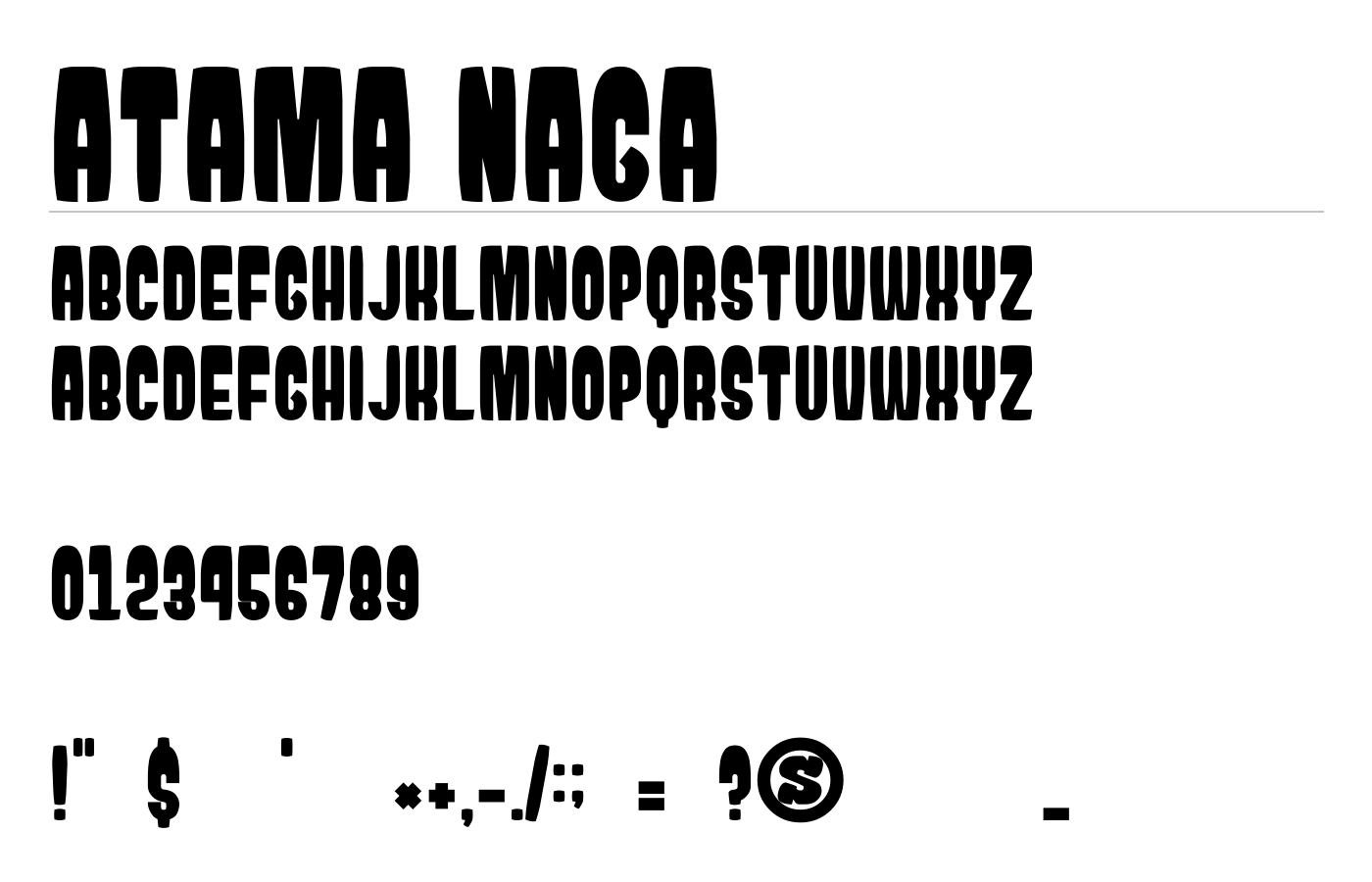
Atama Naga is a bold, condensed sans serif font with a playful yet slightly rugged personality. Its strong, thick strokes and unusual rounded shapes give it a distinctive, eye-catching appearance perfect for headlines, logos, and branding that needs to stand out with a unique and approachable vibe. This font works well in creative, casual, or adventurous contexts where impact and character are important.
Atama Naga Font
About Atama Naga Font